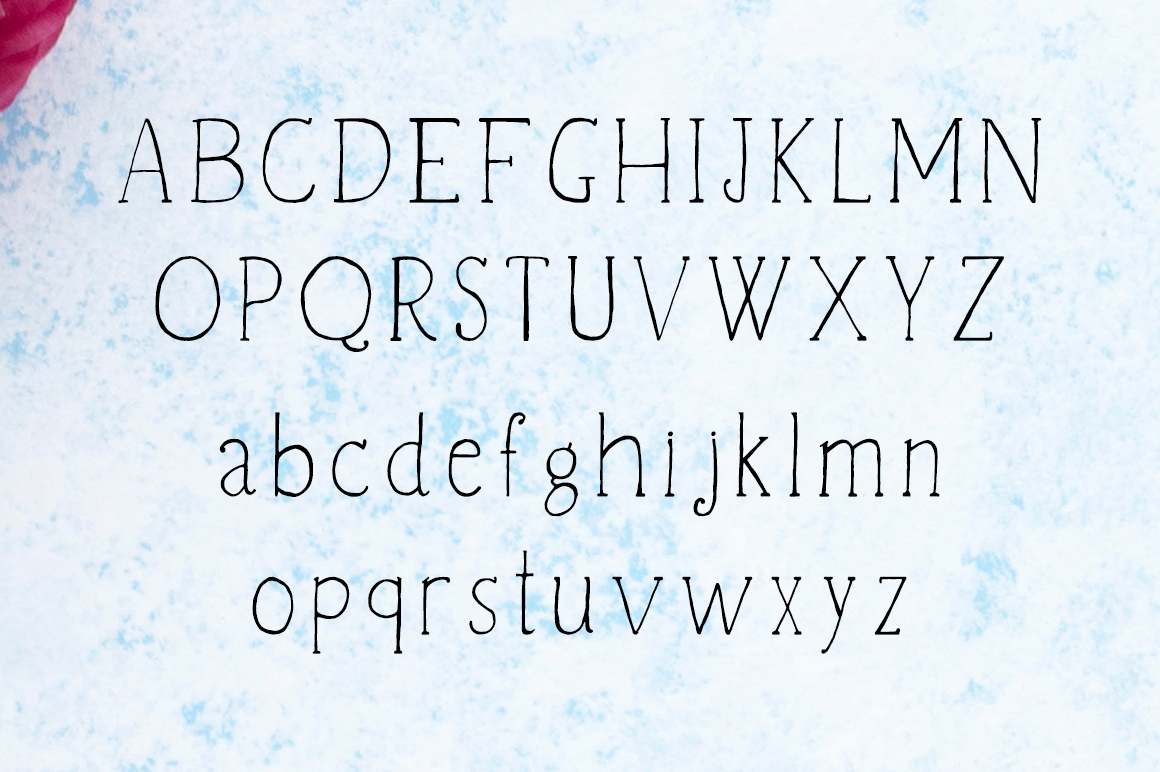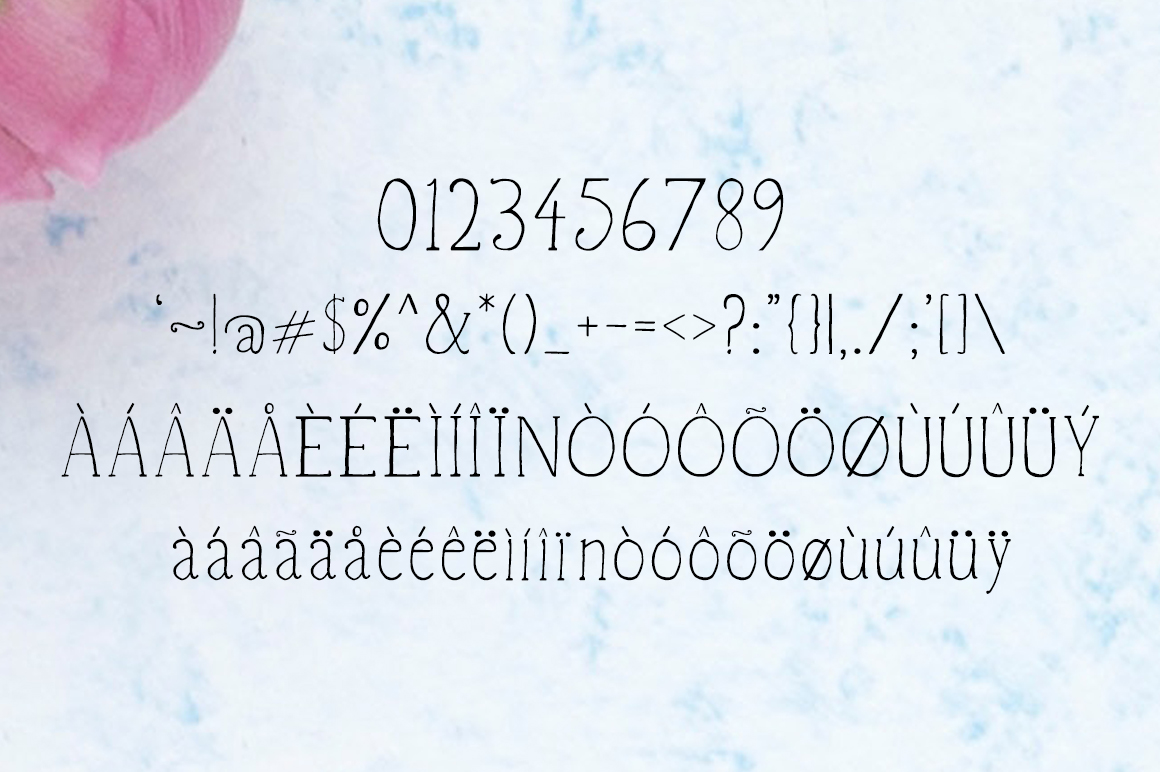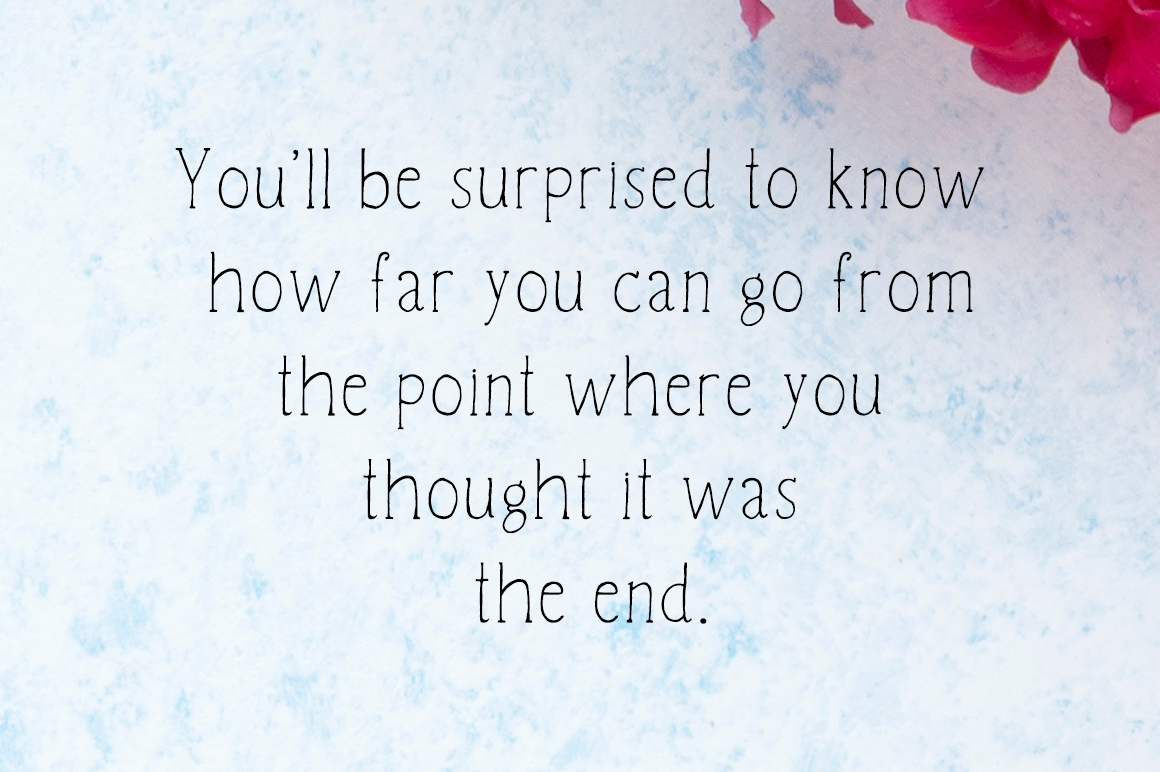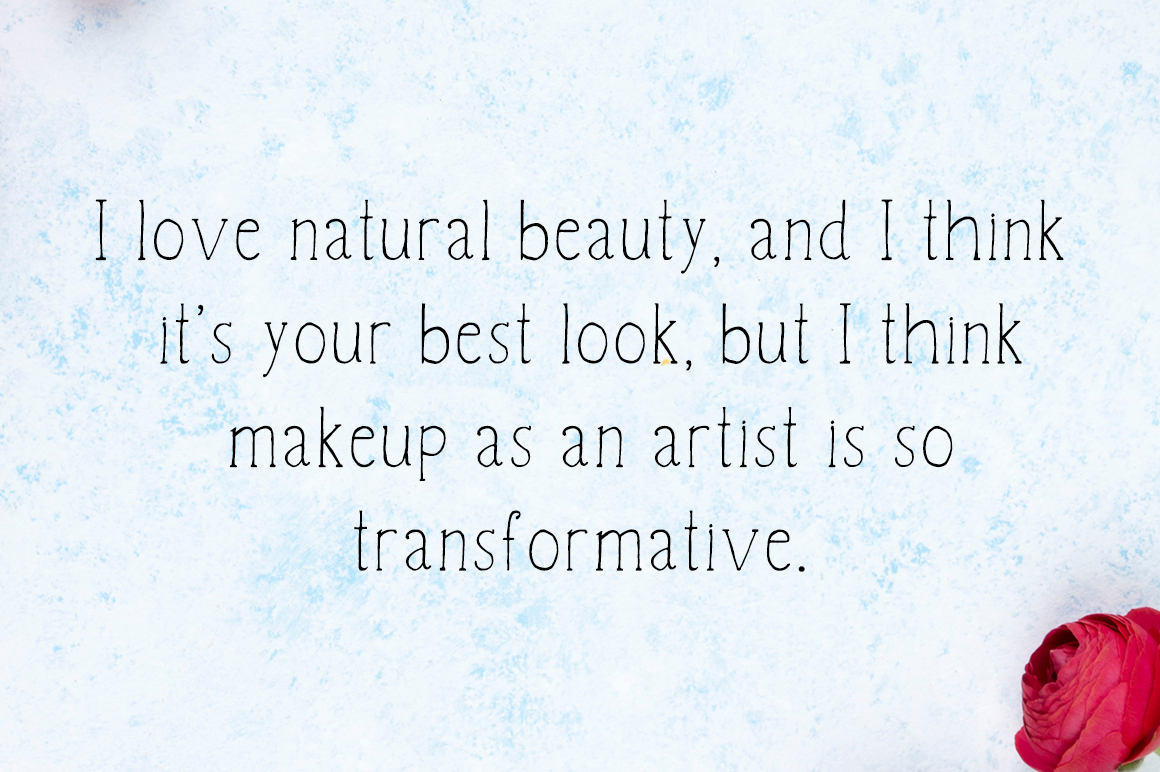
HomeScript FontsVanett Font Script Fonts Vanett Font FacebookXPinterestWhatsApp Vanett Font Poster 2 Vanett Font Poster 3 Vanett Font Poster 4 Vanett Font Poster 5 About Vanett Font Vanett is a creative, versatile font. It has a fragile feel, which makes it great for decorative projects. DOWNLOAD NOW People also explored Infinity Font Leopard Font Espada Del Destino Font Willy Vita Font Cyber Graph Font Flourishes Font Bokeseni Condensed Italic Font Tippa Font Marketing Font 462 0 TagsVanett Font Previous articleNicky FontNext articleLicht Font LEAVE A REPLY Cancel reply Comment: Please enter your comment! Name:* Please enter your name here Email:* You have entered an incorrect email address! Please enter your email address here Website: Save my name, email, and website in this browser for the next time I comment. Personal Use Free Grillin Personal Use Free Read more about this font Arnitta Callina Personal Use Free Read more about this font Tide Personal Use Free Read more about this font Monofonto Personal Use Free Read more about this font BLOG Exploring Font Trends Shaping Communication in the Digital Era Fonts, like all design elements, are subject to trends. They play a crucial role in communicating a brand's personality,... Free vs Paid Fonts: Why Investing in Premium Fonts Is Worth It Transform Your Website: Elevate Your Typography with 7 Best Web Font Generators How to Cut Any Font on Cricut: Convert a Font to SVG (Free)